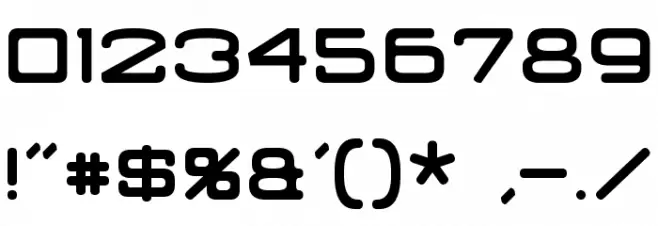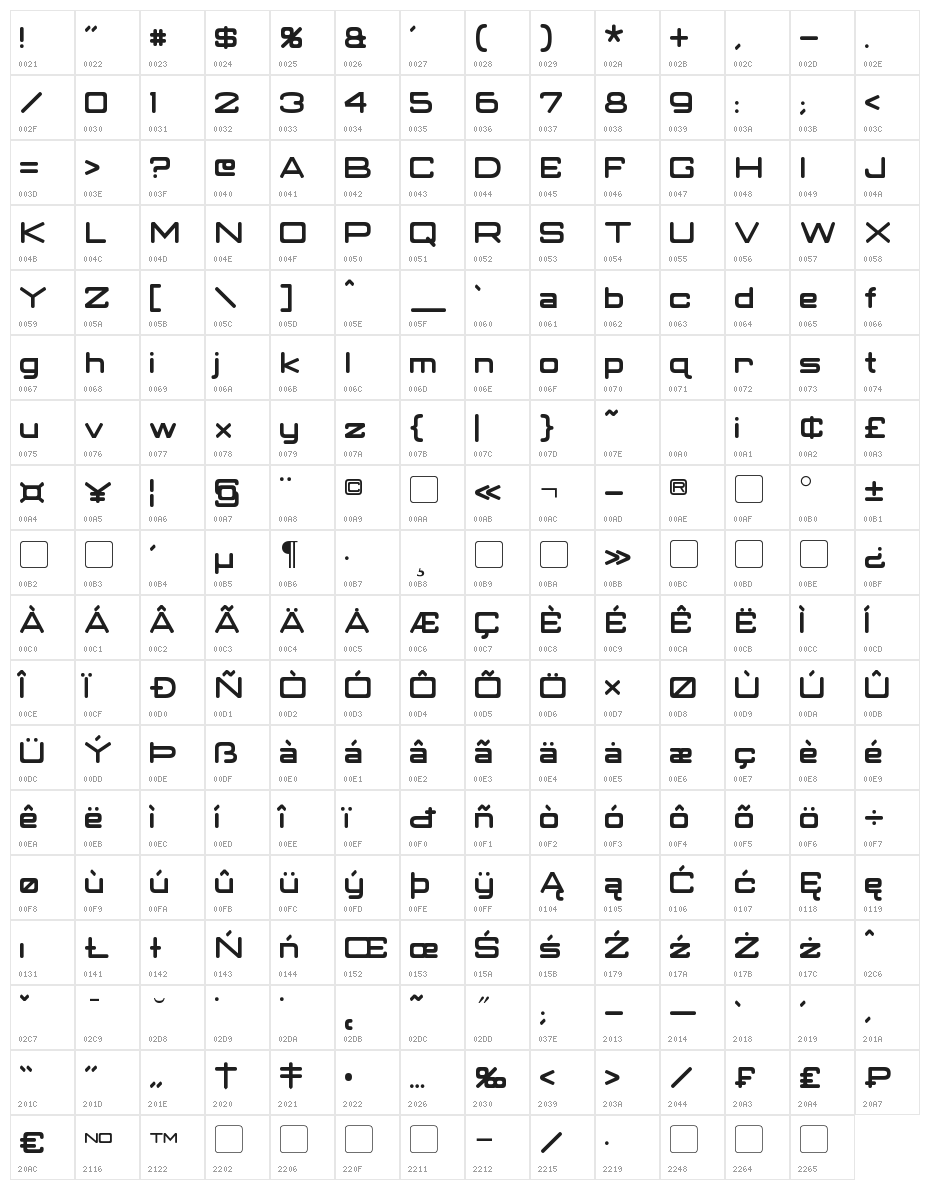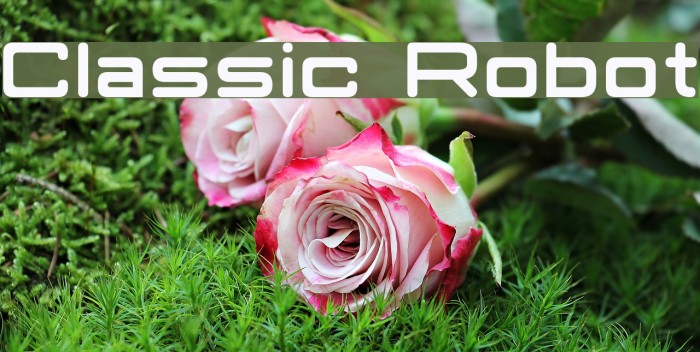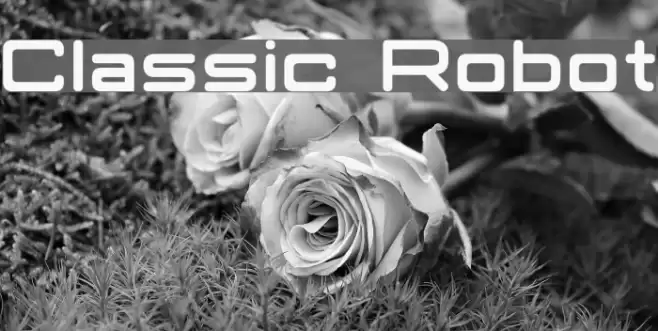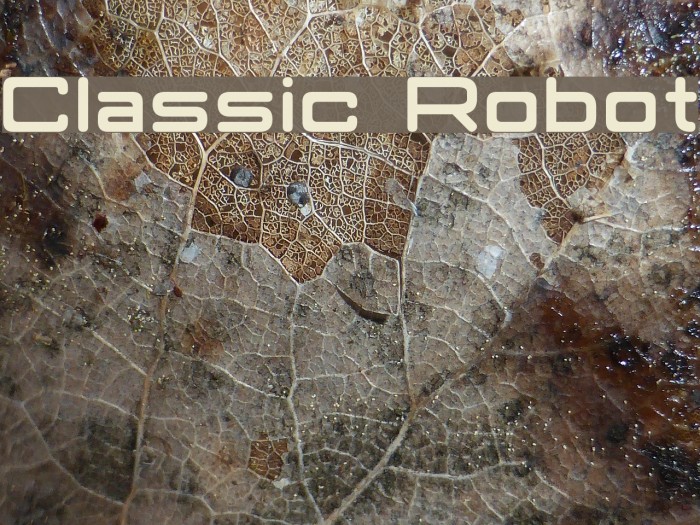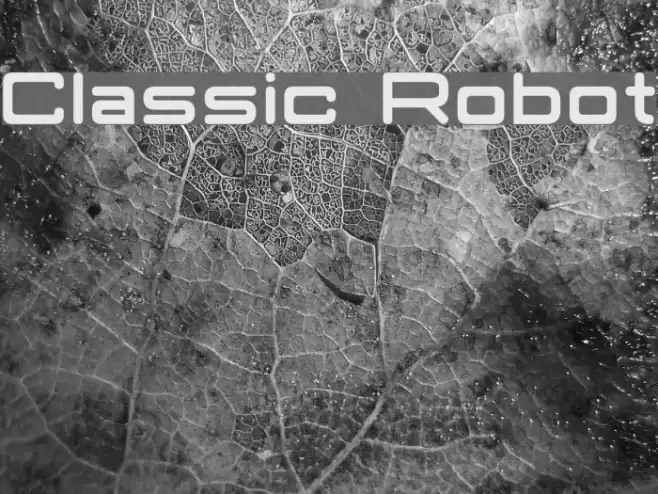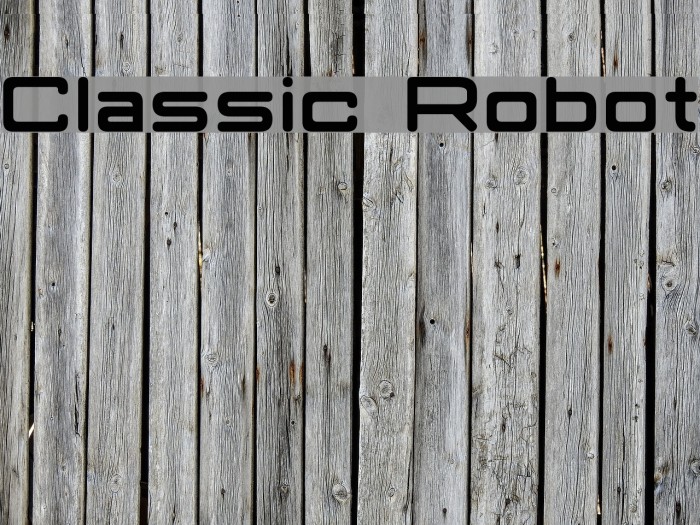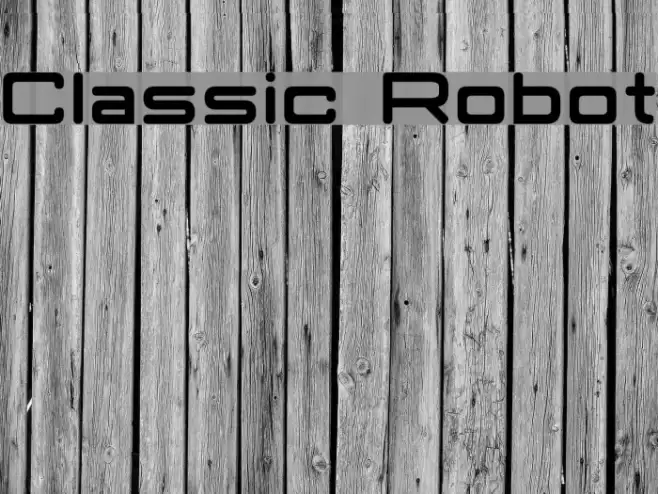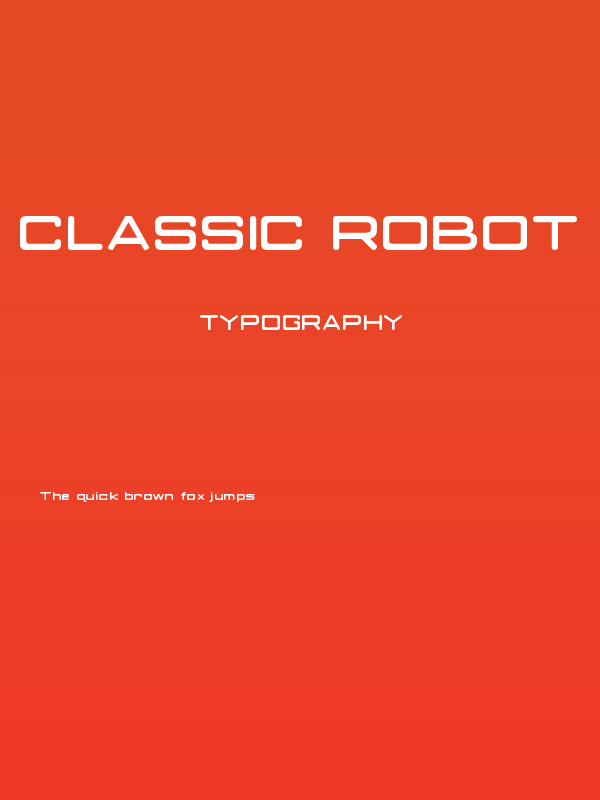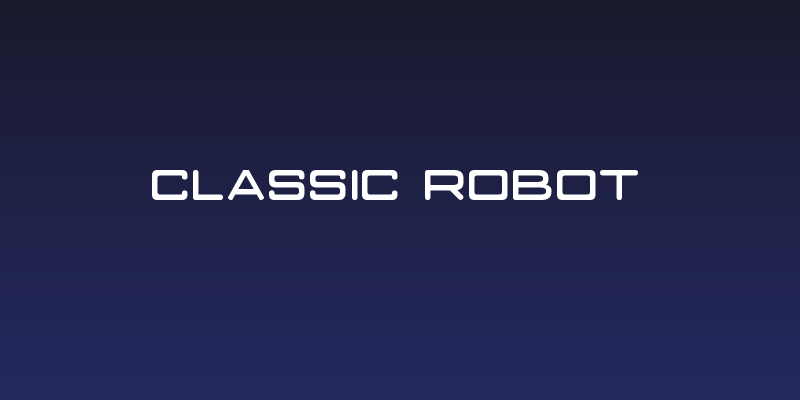
Classic Robot Font
Classic Robot Description
This font features a futuristic and geometric design, characterized by its rounded edges and uniform stroke width. The uppercase and lowercase letters maintain a consistent height, creating a harmonious and balanced appearance. The numerals are distinct and easily readable, while the special characters complement the overall style with their sleek and modern look. The font's design is reminiscent of digital or robotic aesthetics, making it suitable for technology-themed projects. Its clean lines and minimalistic approach ensure versatility and readability across various applications.